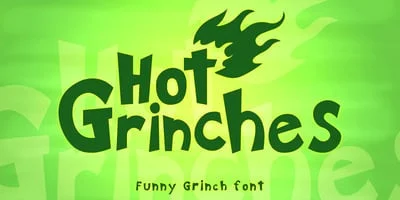
Hot Grinches Font
Hot Grinches Font is perfect for Christmas party invitations, holiday greeting cards, winter festival promotions, ugly sweater contest posters, holiday marketing campaigns, Christmas merchandise designs, seasonal retail displays, festive restaurant menus, holiday comedy shows, and any project requiring playful Christmas spirit with mischievous holiday charm and whimsical seasonal entertainment.
What makes Hot Grinches Font exciting is its mischievous holiday spirit and playful Christmas energy that captures the delightful contradiction of grumpy holiday characters who secretly love the festive season. The typeface features bold, quirky letterforms with whimsical curves and festive details that evoke the humorous charm of beloved holiday antiheroes and the infectious joy of Christmas celebration. Its playful character design speaks to audiences who appreciate holiday humor, seasonal fun, and the heartwarming transformation from holiday grumpiness to Christmas joy, making it perfect for brands seeking to communicate festive entertainment, holiday nostalgia, and the universal appeal of Christmas magic that melts even the grumpiest hearts.
Hot Grinches Font family includes regular and bold weights with complete character sets featuring uppercase and lowercase letters, holiday-inspired numerals, festive punctuation marks, and Christmas decorative elements. The typeface incorporates seasonal design principles and holiday entertainment aesthetics that enhance its festive appearance while maintaining excellent readability across all Christmas applications and holiday marketing projects.
Whether you're creating holiday entertainment branding, designing Christmas marketing materials, or developing seasonal celebration content, Hot Grinches Font provides the perfect typographic foundation that spreads Christmas cheer and holiday laughter. The font's festive appeal and playful character make it particularly effective for holiday events, Christmas retailers, and seasonal entertainment venues. Its holiday aesthetics translate joyfully across Christmas signage, holiday merchandise, and digital platforms, ensuring your brand communicates the kind of authentic Christmas spirit and holiday humor that resonates with families seeking festive fun and memorable holiday experiences.